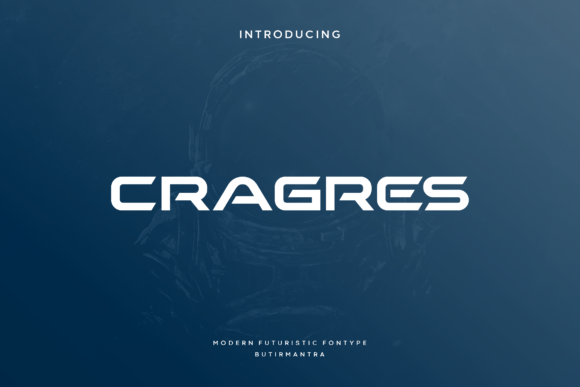
Introducing Cragres Font, the ultimate display font that's guaranteed to make your designs stand out like never before. With its bold, geometric lines and modern aesthetic, Cragres is the perfect choice for making a statement with your typography.
Step into a world of visual impact where every letter commands attention, effortlessly captivating your audience's gaze. Imagine your designs radiating with a unique, bold charm, leaving a lasting impression that lingers in their minds long after they've closed the page.
Cragres is the epitome of boldness, providing a striking foundation for your embroidery endeavors. Its sharp edges and angular forms create an undeniable presence, transforming your words into visually stunning masterpieces.
This well-crafted font brings a touch of sophistication and elegance to your designs. Its clean lines and subtle curves evoke a sense of timelessness, ensuring your creations will stand the test of time.
With Cragres, you'll discover a versatile font that effortlessly complements any design vision. Its bold personality shines through, whether you're crafting bold headlines, creating eye-catching logos, or designing impactful branding materials.